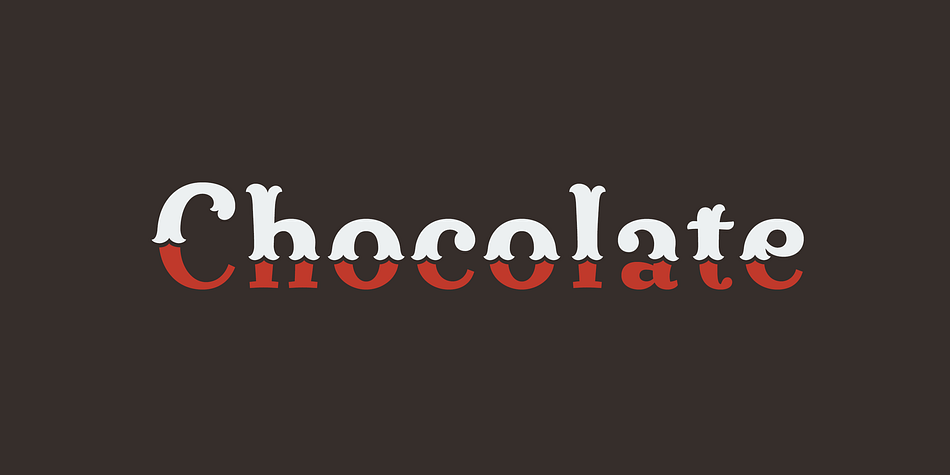
Grandes Vacances
Grandes Vacances is a western and wood type font family. This typeface has three styles and was published by Dharma Type.
This wood type is one of the most distinctive Wild West–style Tuscan fonts out there.
No other decorative Tuscan or wood type combines charm and sweetness quite like this font family—bold, playful, and irresistibly cute.
Homemade text font is ready to correspond with this family.